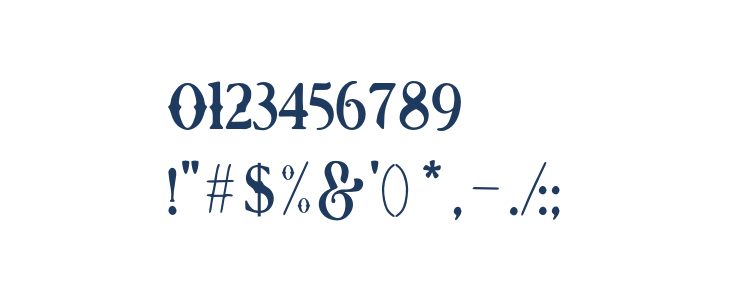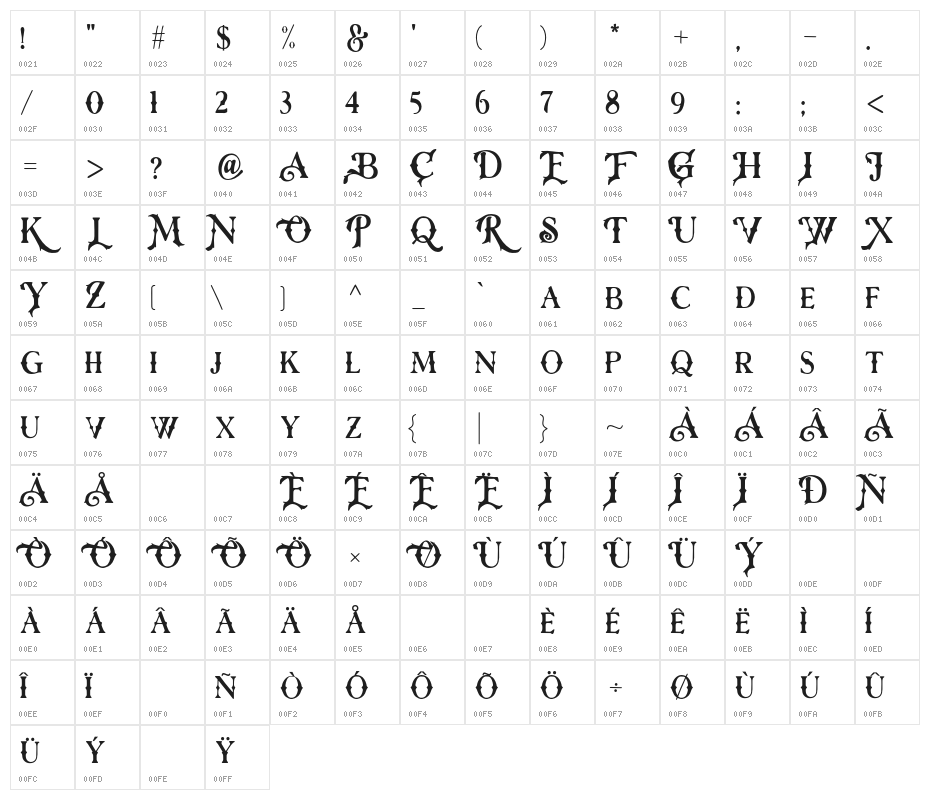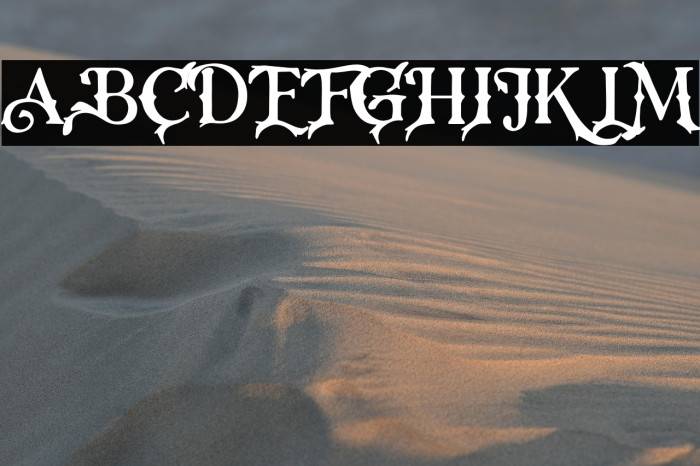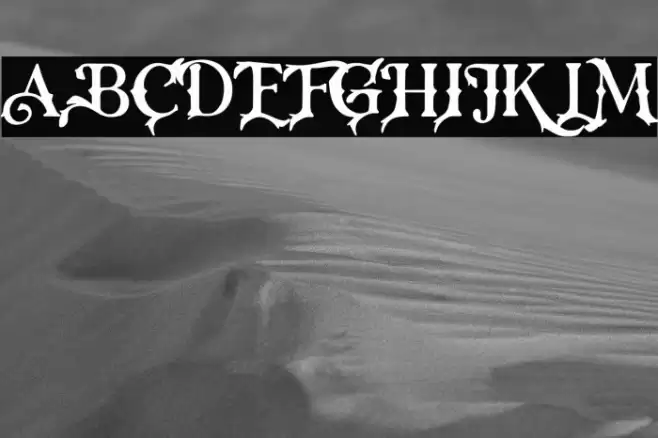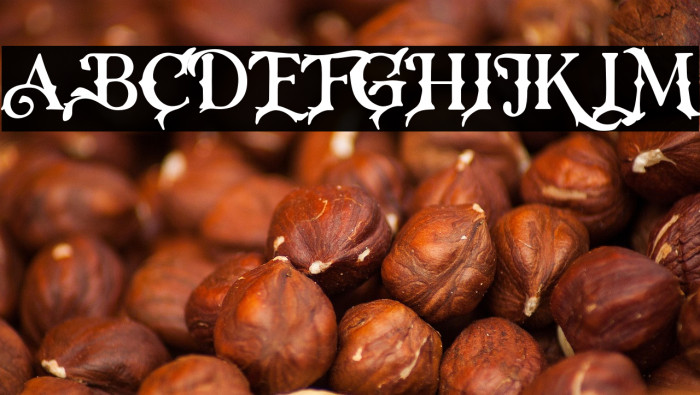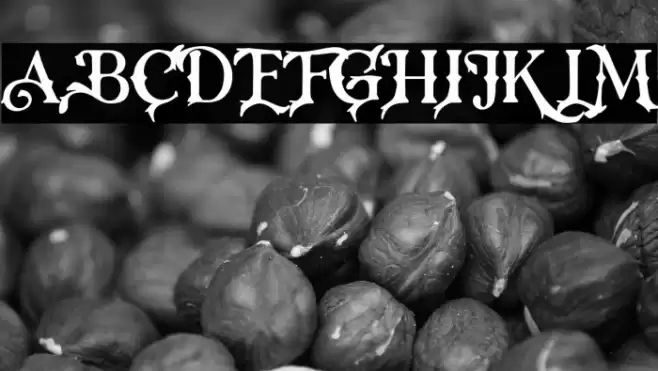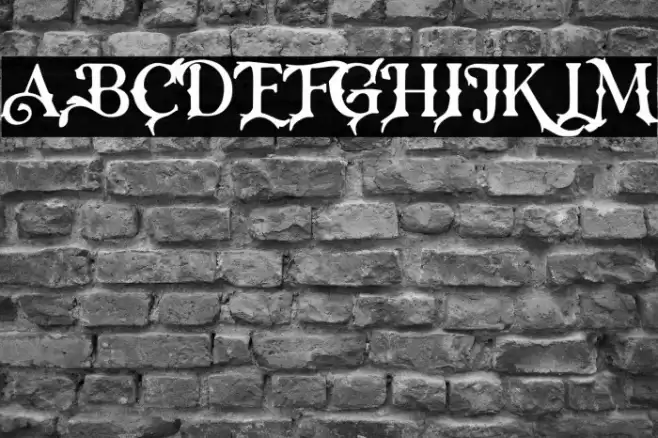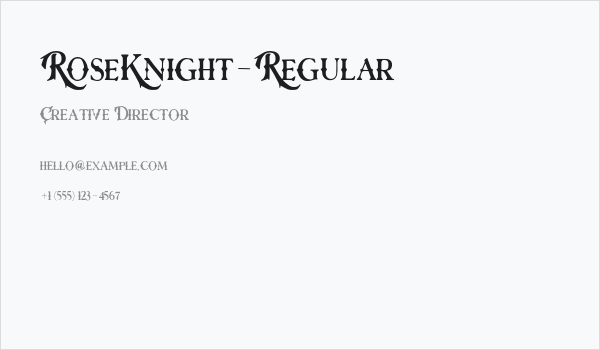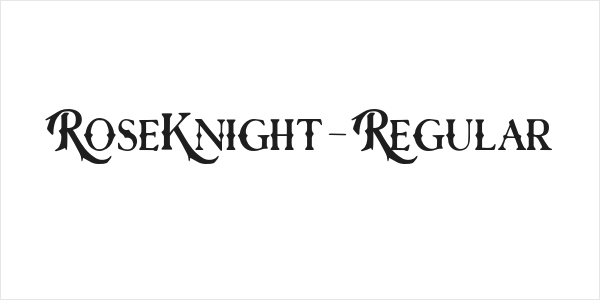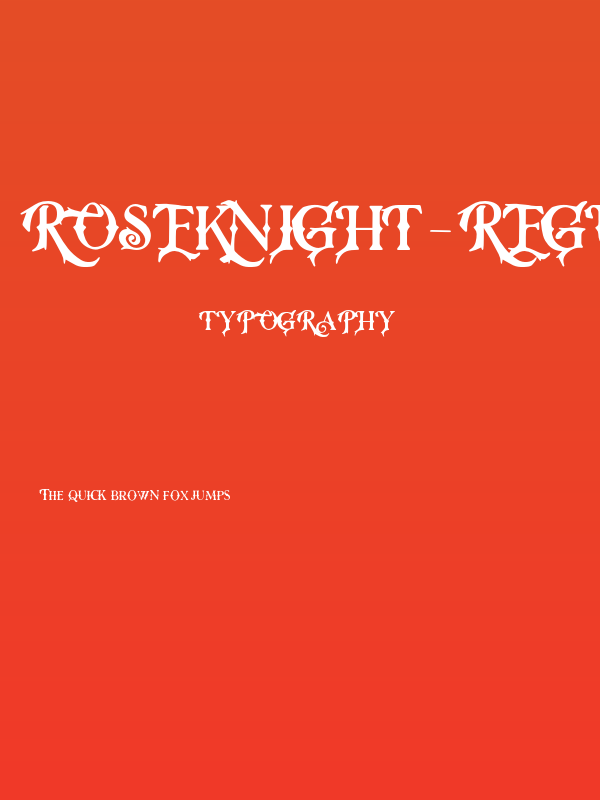
RoseKnight-Regular Font
RoseKnight-Regular Description
This font features an ornate and decorative style with intricate details that evoke a sense of elegance and sophistication. The uppercase letters are characterized by swirling embellishments and sharp serifs, giving them a dramatic and artistic appearance. The lowercase letters maintain a consistent style, with unique flourishes that add to the overall decorative theme. Numbers and special characters are designed to match the elaborate style, ensuring a cohesive look across all text elements. The font's bold strokes and high contrast between thick and thin lines make it stand out, making it ideal for projects that require a touch of grandeur and flair.
Proposed ProjectsIdeal for wedding invitations, luxury branding, theatrical posters, and decorative headlines.